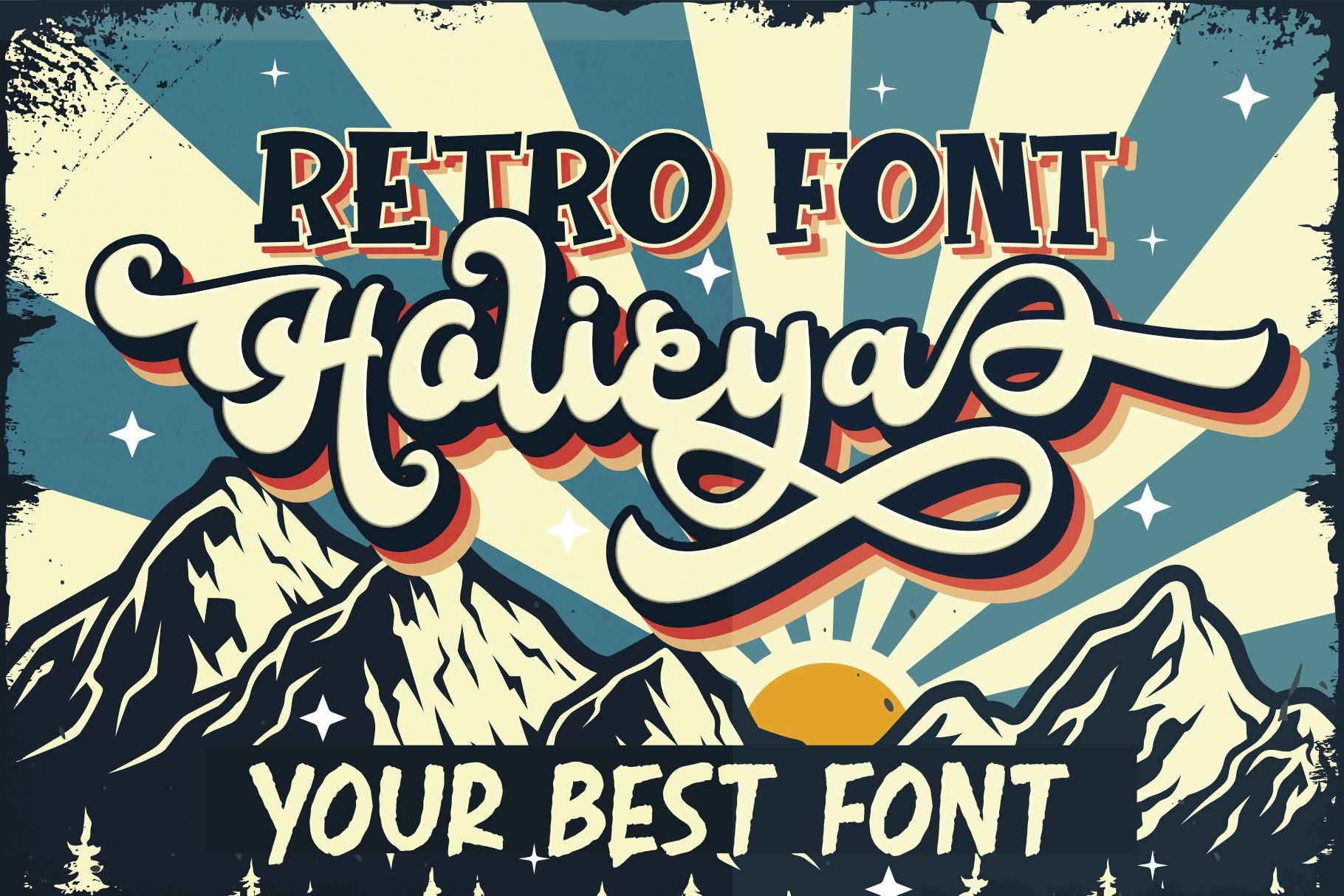
Holicya Retro Font
Holicya is a retro-style font with a stunning style that can make the most of your design projects. This font gives a touch of the retro style that the 60-70s was famous for.
This font has alternative styles for Uppercase and Lowercase, Ligature, ss01, ss02, ss03 to ss04 which can be customized to suit your design needs so you don't waste time creating extrusion effects.
The total glyps for this font is 356 so you can choose according to the right style.